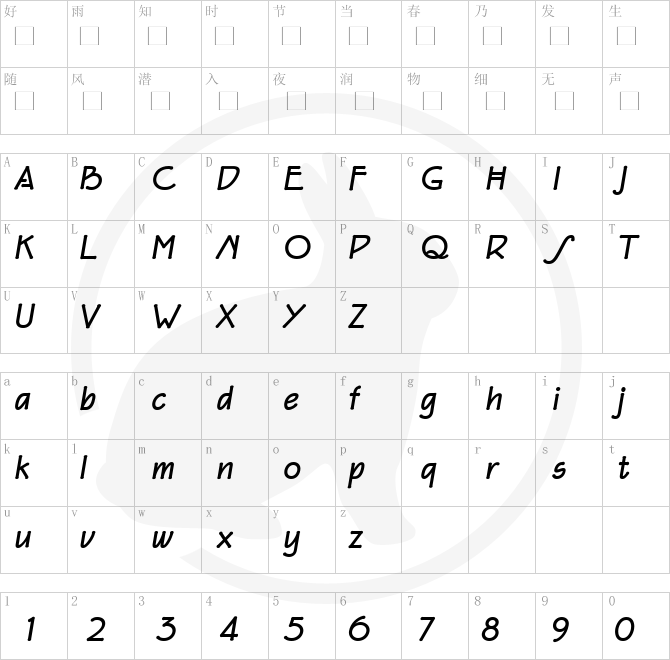
EaglefeatherInformal-Bol-Italic.ttf is a very beautiful artistic font, EaglefeatherInformal-Bol-Italic.ttf is widely used in the design and printing of various books and pictures,EaglefeatherInformal-Bol-Italic.ttf has a strong visual impact,EaglefeatherInformal-Bol-Italic.ttf is a commonly used font in newspapers, magazines and books, and is used in posters, e-commerce Poster design, store design, logo design, font design and other fields.EaglefeatherInformal-Bol-Italic.